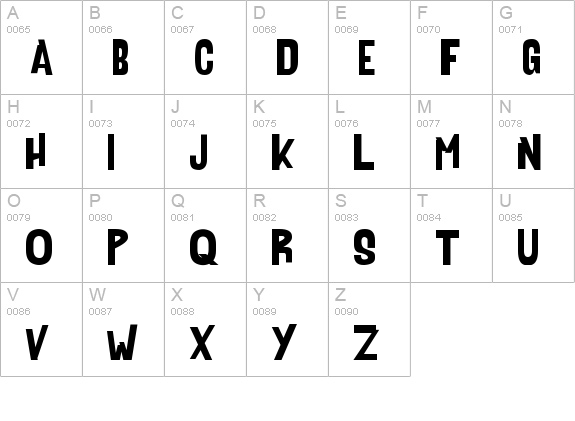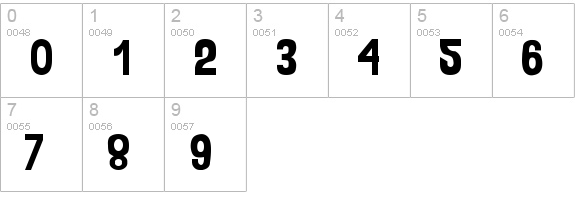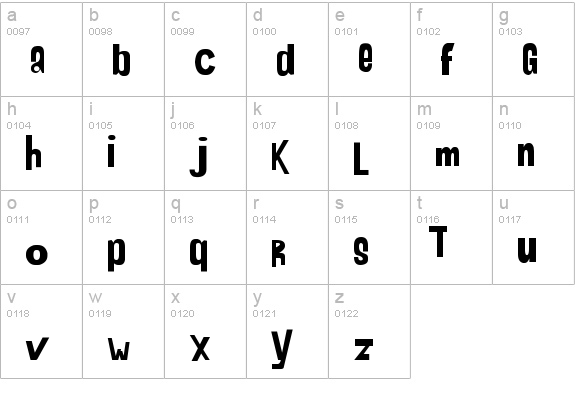
AHDN Font Details
The AHDN font is a stunning display typeface that effortlessly captures attention with its elegant and modern design. Its sleek lines and unique letterforms make it perfect for a wide range of creative projects, from logos and branding to editorial designs and social media graphics. The AHDN font adds a touch of sophistication and professionalism to any design, making it a must-have for designers, artists, and creatives alike. What makes the AHDN font even more remarkable is that it is available for free download at FontsMarket.com. This means that you can easily access and use this incredible typeface without any cost or restrictions. Whether you're a professional designer or someone looking to enhance their personal projects, the AHDN font offers a high-quality, premium look without the premium price tag. With its extensive character set, the AHDN font provides versatility and creative freedom. It includes uppercase and lowercase letters, numerals, punctuation marks, and special characters, allowing you to create captivating designs with ease. The well-crafted glyphs ensure smooth readability, ensuring that your message is communicated clearly and effectively. The AHDN font is designed with meticulous attention to detail, ensuring that each letter is balanced and visually appealing. Its clean and modern aesthetic makes it suitable for various design styles, whether you're going for a minimalist, contemporary look or a bold, eye-catching design. The font's versatility is further enhanced by its ability to adapt to different sizes and mediums, guaranteeing that it will look stunning on everything from large-scale banners to small print materials. In addition to its stunning design and versatility, the AHDN font's availability as a free download from FontsMarket.com makes it an irresistible choice for designers seeking high-quality fonts without breaking the bank. Download the AHDN font today and elevate your designs with its timeless elegance and captivating style.